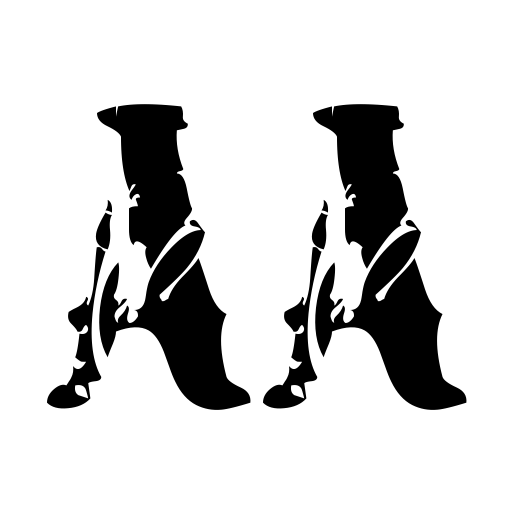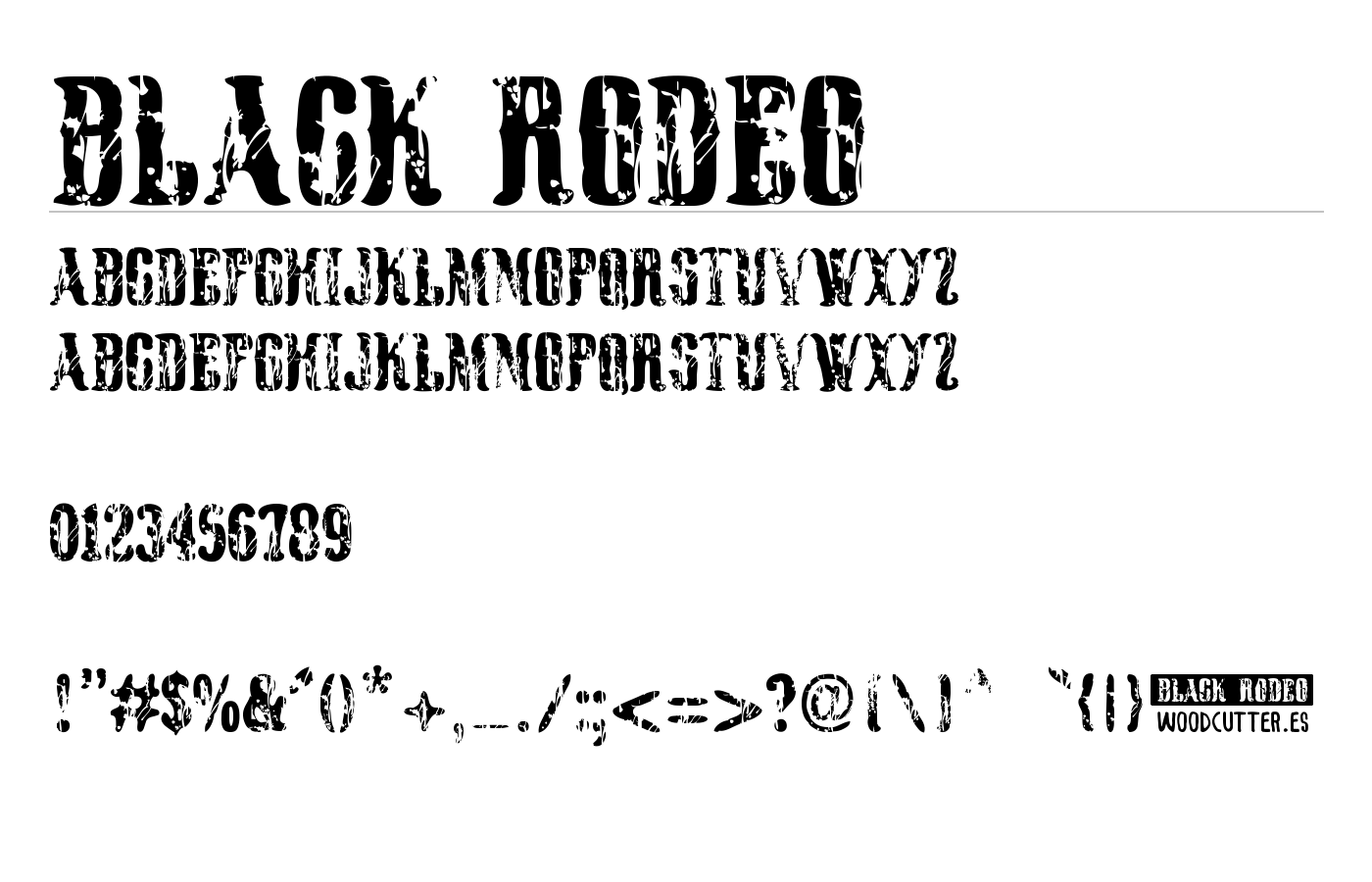
Black Rodeo is a bold, condensed slab serif font with a distressed, textured effect that gives it a rugged, vintage western vibe. Its strong presence and worn details make it perfect for eye-catching headlines, posters, and branding that aim to evoke a tough, rustic, or adventurous personality. This font works especially well for themed projects related to cowboy culture, outdoor events, or retro aesthetics where a bold, authentic style is desired.
Black Rodeo Font
About Black Rodeo Font